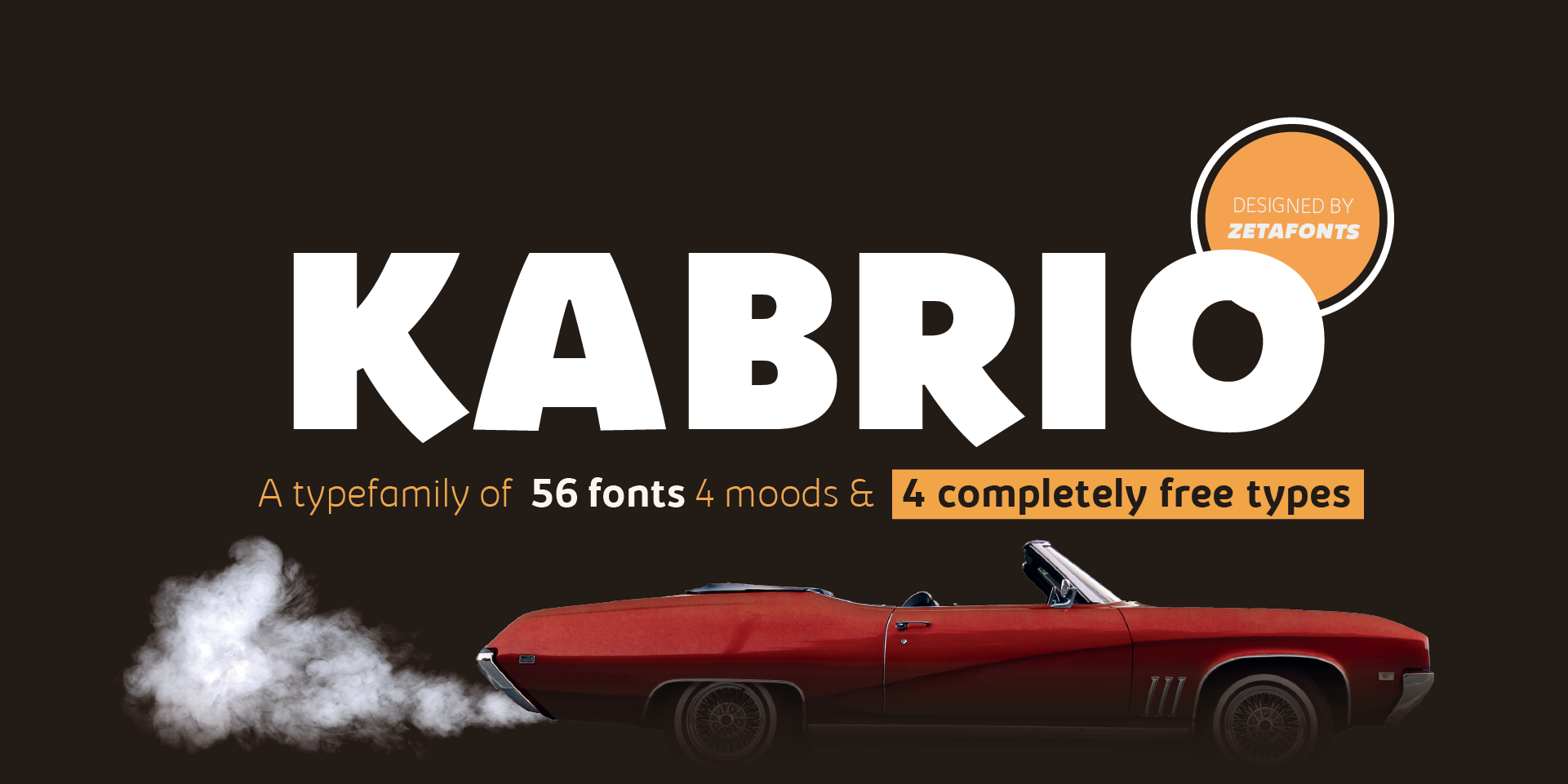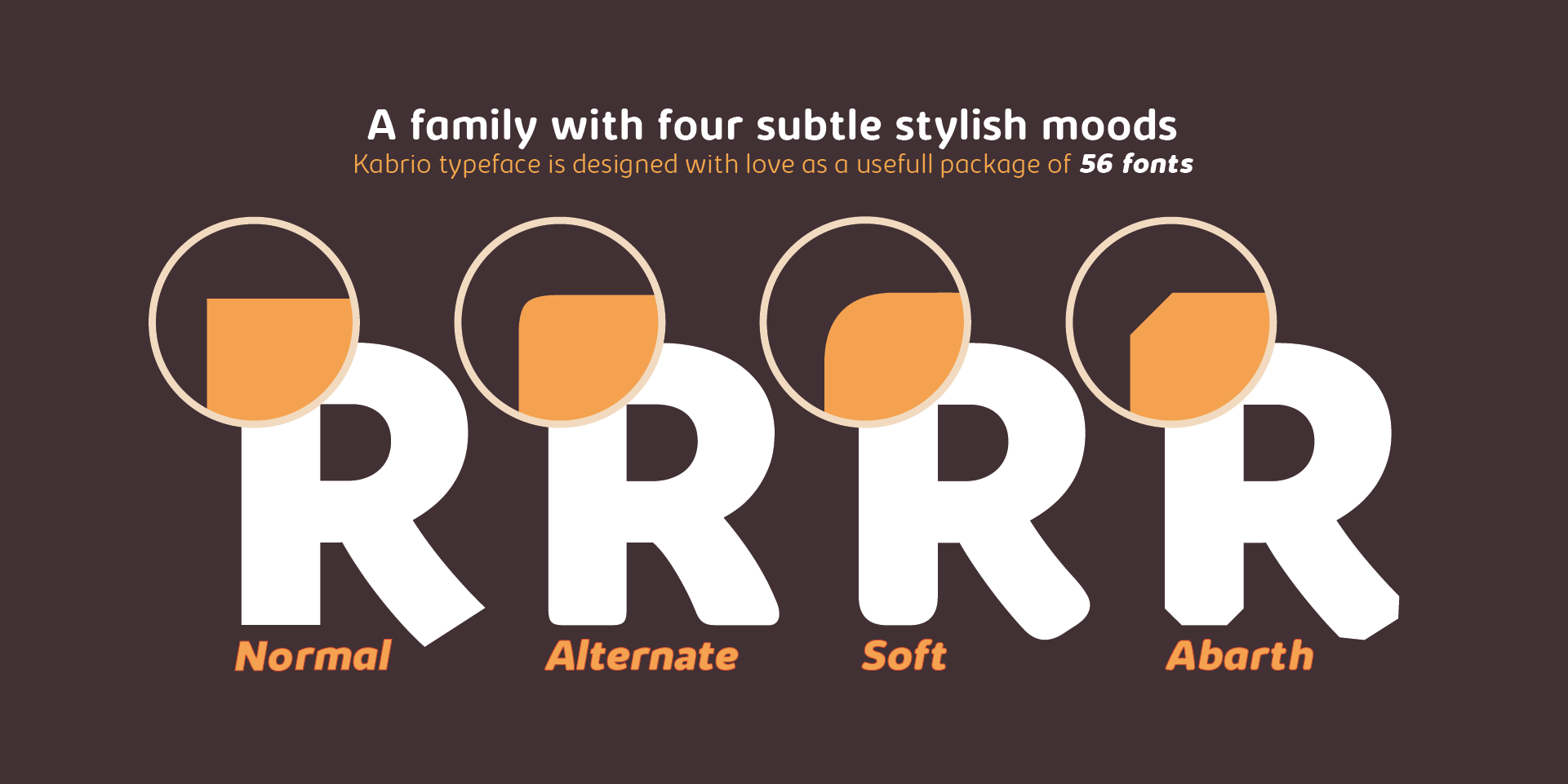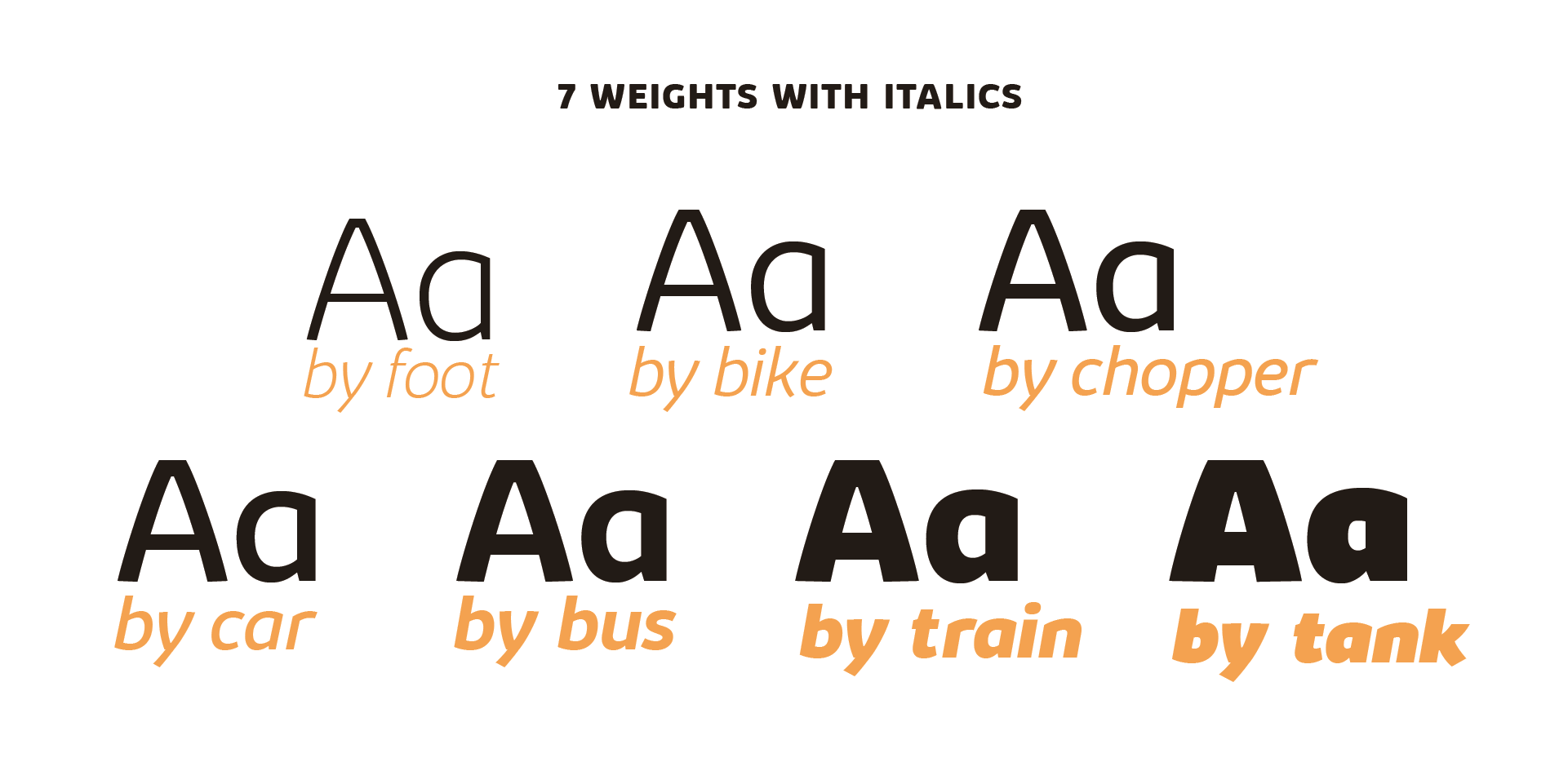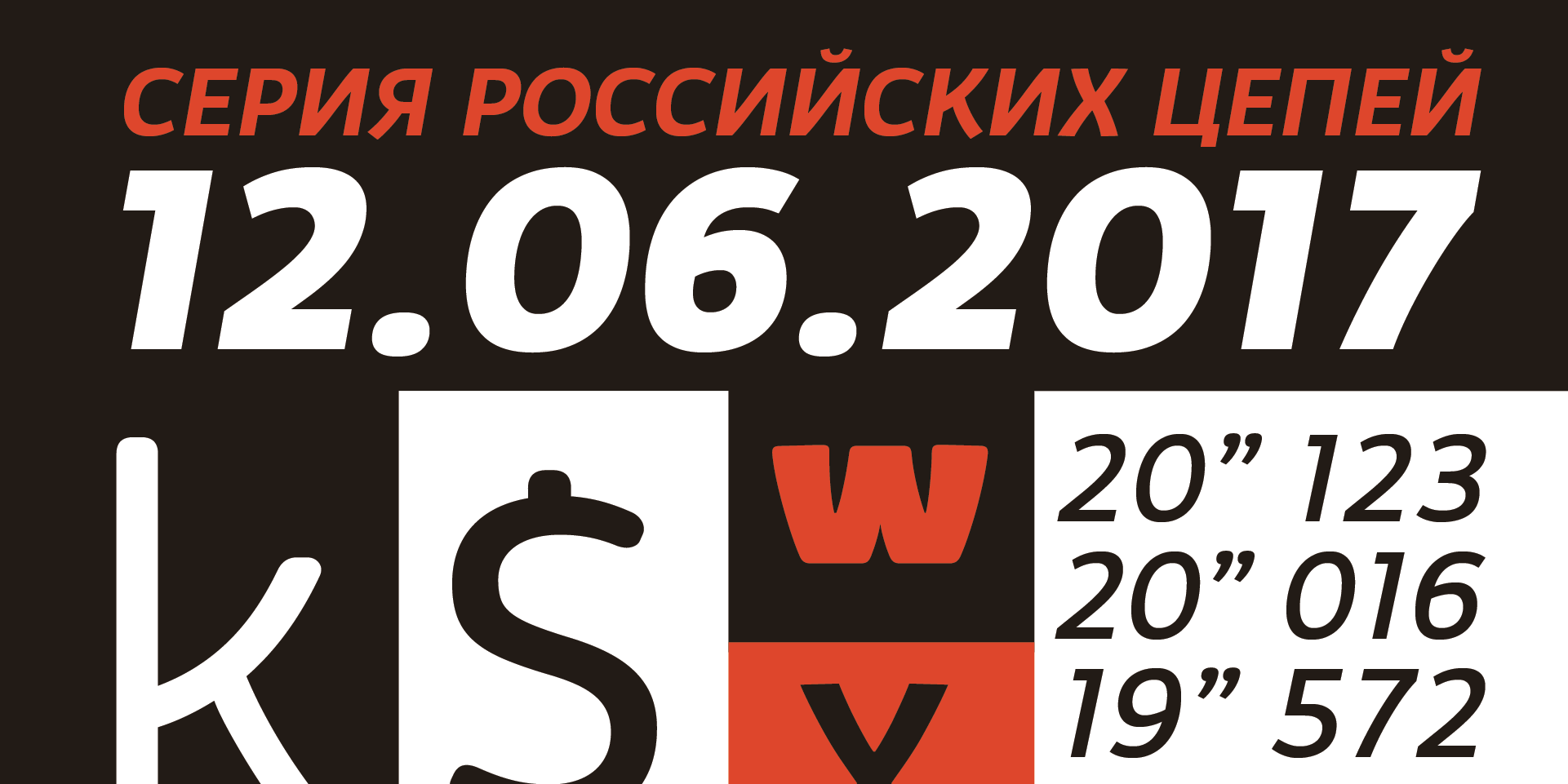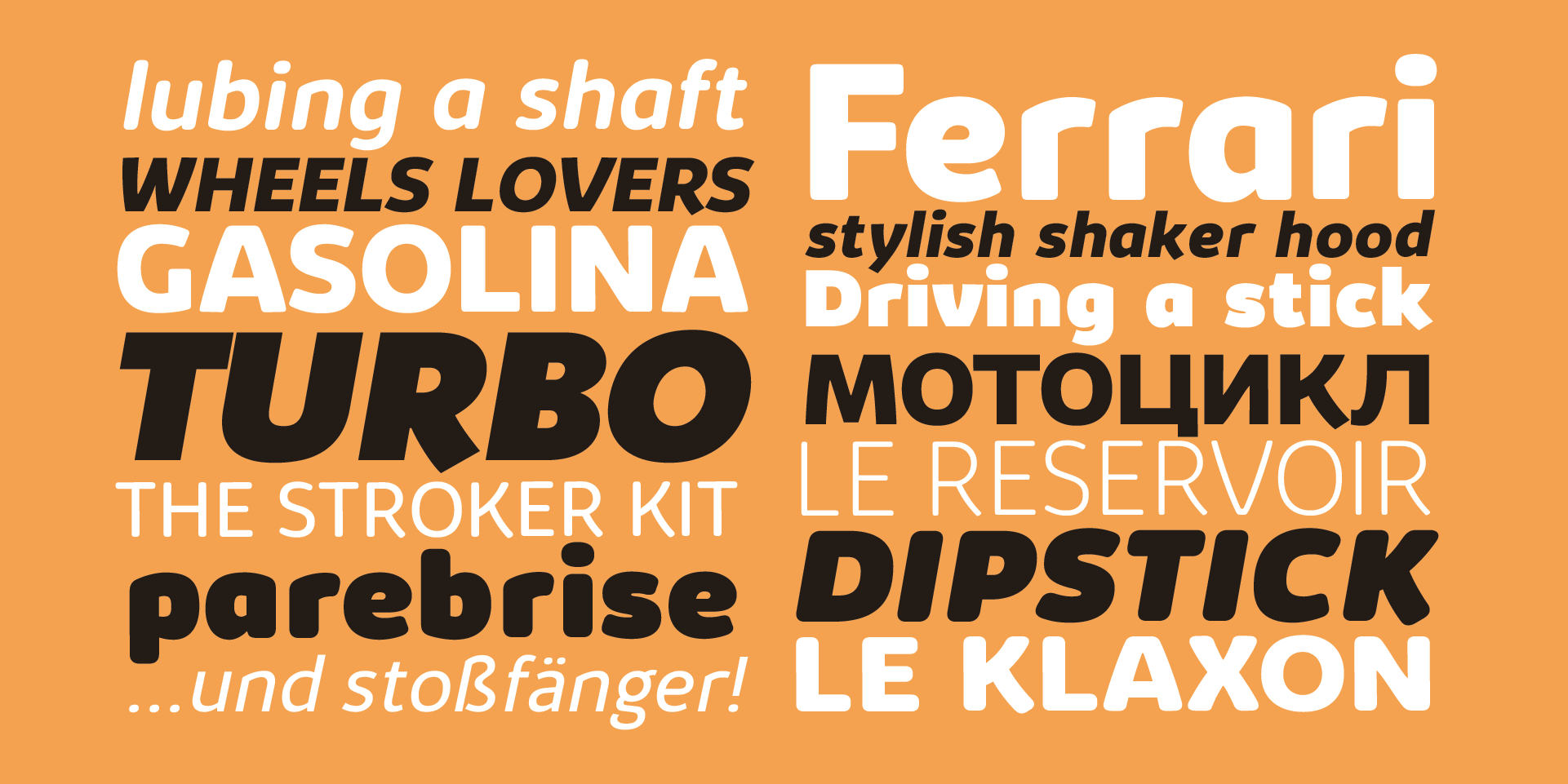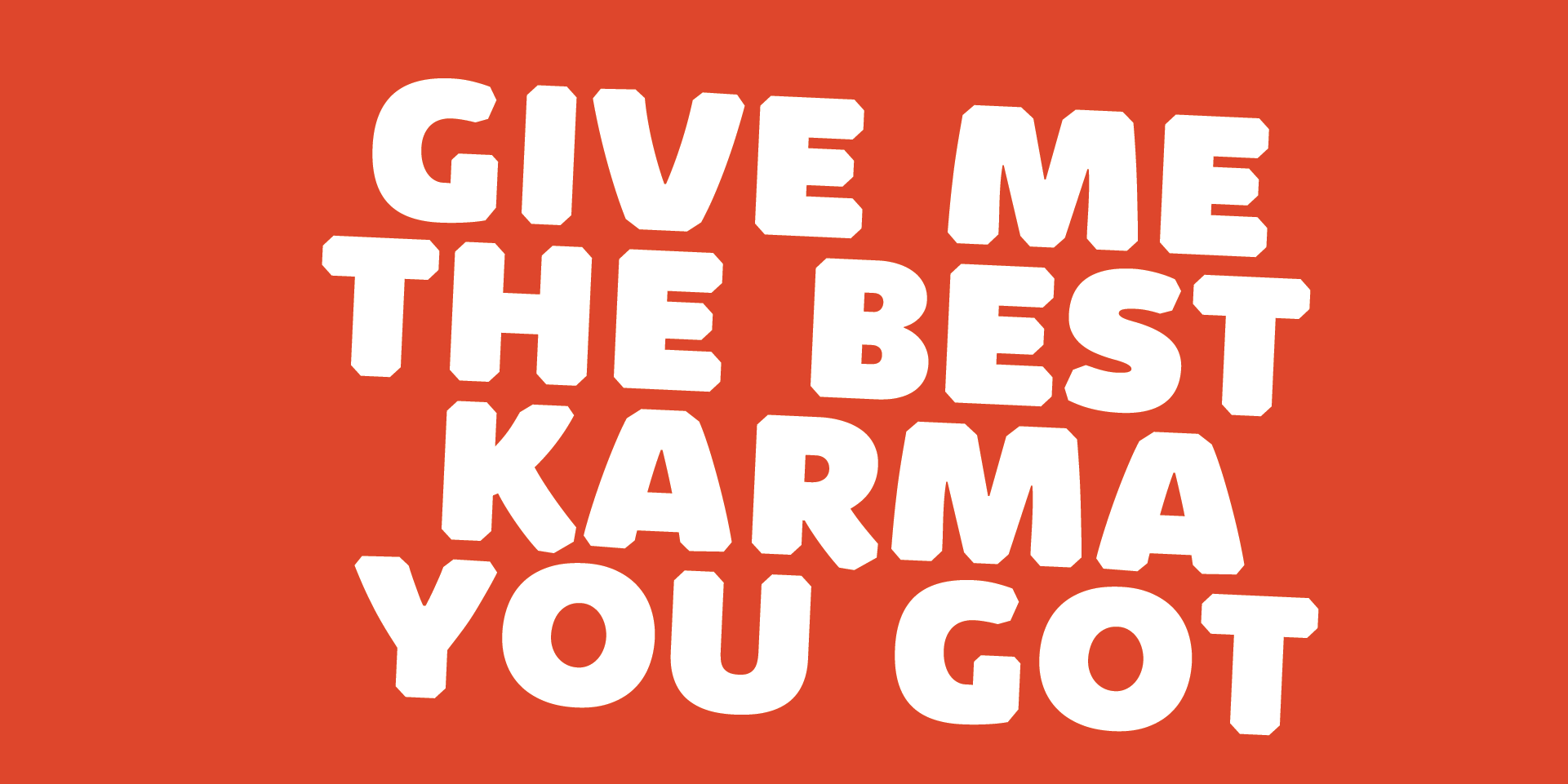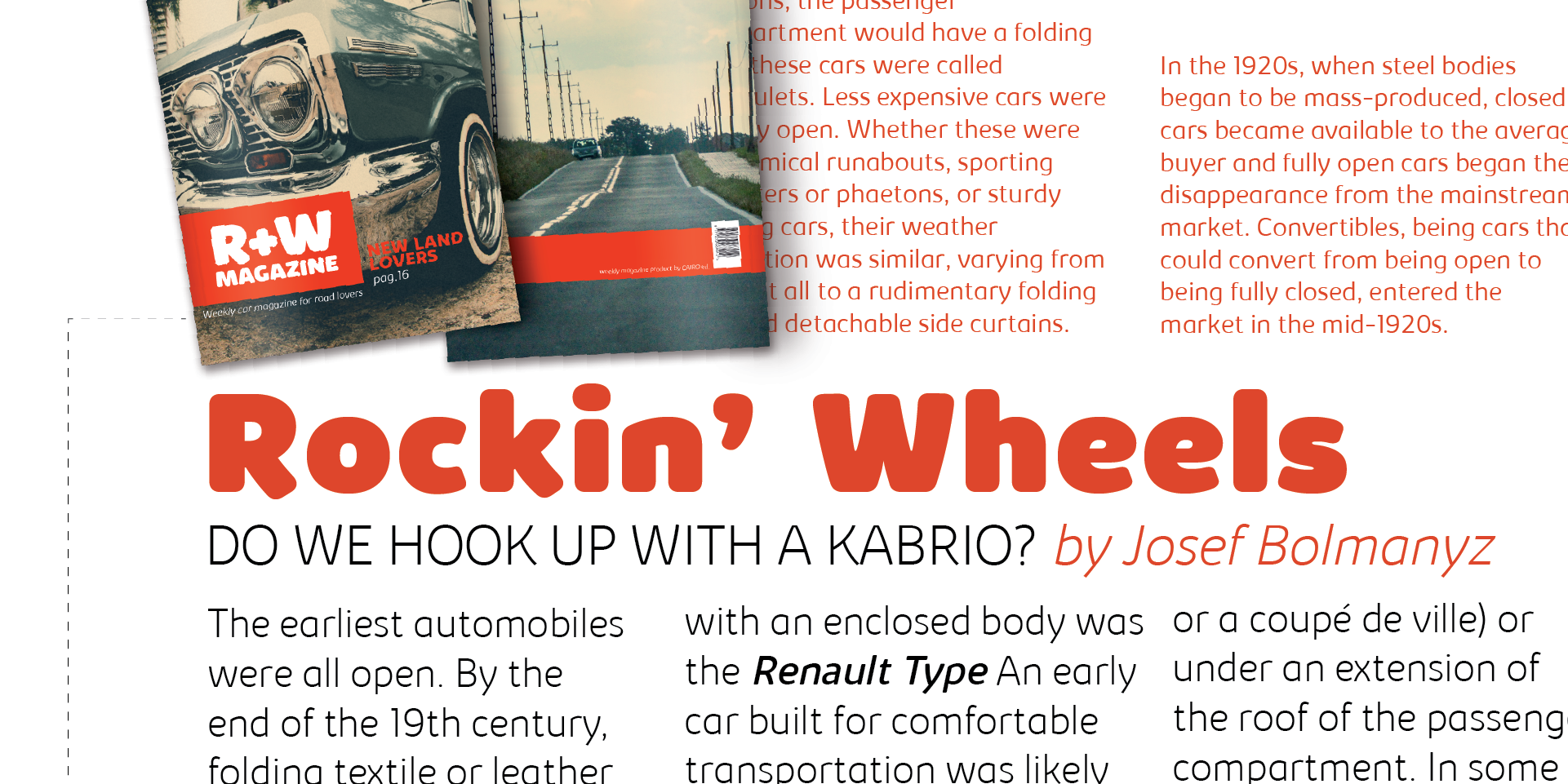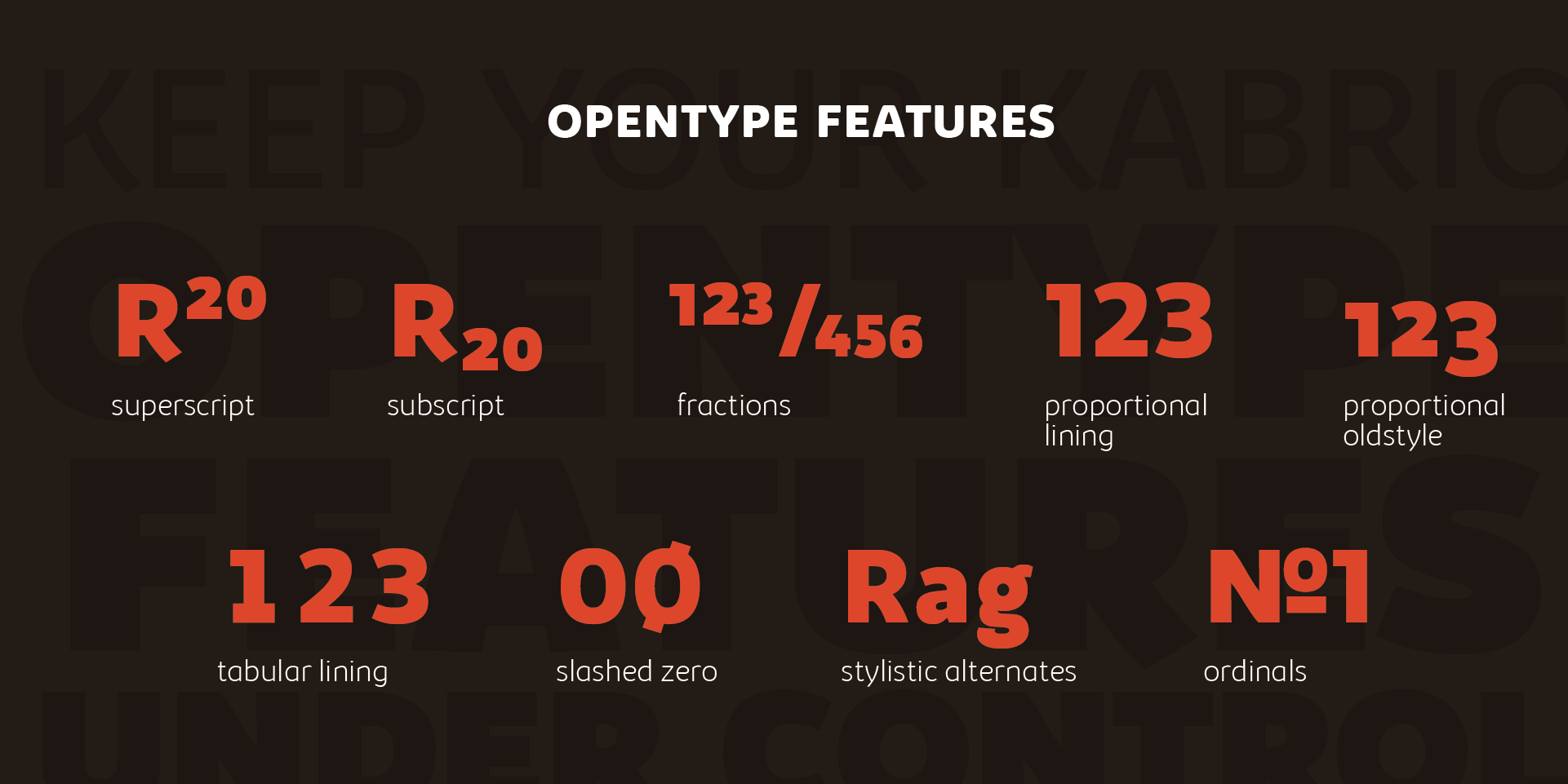
Designed by Cosimo Lorenzo Pancini and Andrea Tartarelli, Kabrio is a sans serif typeface for the lovers of minimal design, high speed and great curves. Quick, efficent and great looking like a sports car on the winding roads of the French Riviera, Kabrio has been expertly crafted in Italy with a striking bodywork and finley tuned design details. Try it for a test-drive and enjoy the sheer pleasure of the Kabrio experience.
Kabrio features four different corner treatments to offer variation in display and logo use: the "alternate" variant features slightly rounded corners, that become even more round in the "soft" variant. "Abarth" features cut corner for a more mechanical, cold look. Each variant comes in seven weights with matching italics, for a grand total of 56 weights to add to your typographic palettes. All Kabrio weights feature an extended character set with accents to cover over forty european languages as well as russian and bulgarian cyrillc.
Open type features include stylistic alternates and a wide arrange of numerals (oldstyle, tabular, tabular oldstyle, superior, inferior, fractions) to allow you maximum flexibility to use Kabrio in number-heavy documents: spreadsheets, tables, timetables.
Features
WagekStylistic Alternates
VagaStylistic Set 1
12/23Fractions
1a 3thOrdinals
12360Lining Figures
12360Oldstyle Figures
1234Tabular Figures
H123Denominators
H123Superscript
H123Scientific Inferiors
H123Numerators
120Slashed Zero